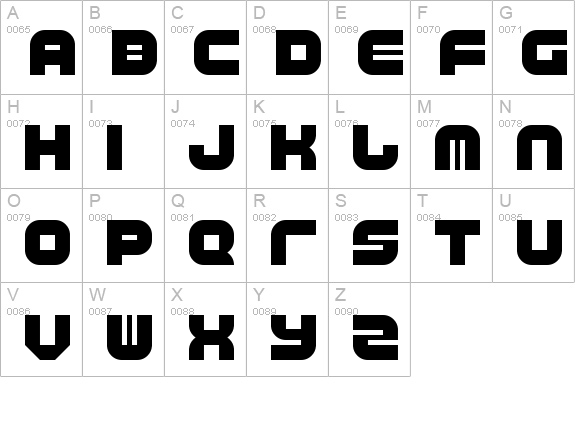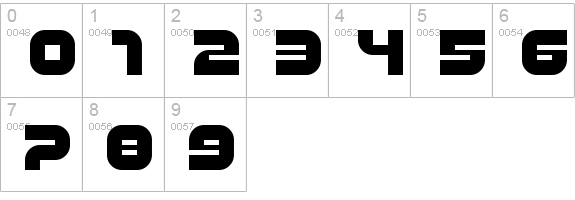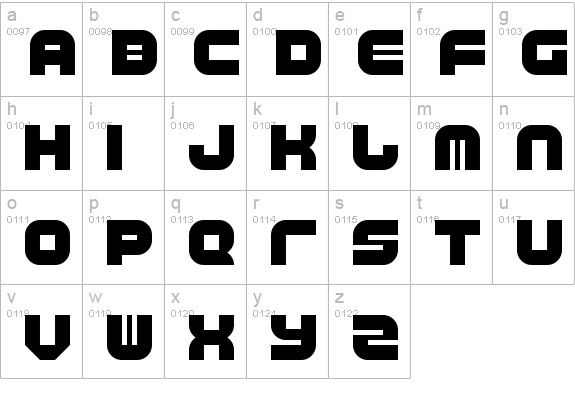
Trip Trap Regular Font Details
Trip Trap Regular is the standard, neutral variant in the Trip typeface family \xE2\x80\x94 well suited to general body text, paragraphs, and standard typographic work.
Trip Trap Regular font is a versatile and modern typeface that is perfect for a wide range of design projects. Its clean lines and balanced proportions make it easy to read while also adding a touch of sophistication to any layout. Whether you're designing a website, creating a logo, or working on a print project, Trip Trap Regular font will bring a professional and polished look to your work. The best part? Trip Trap Regular font is completely free to download at FontsMarket.com. This means you can start using this high-quality font in your projects right away, without having to worry about any additional costs. With its timeless design and free availability, Trip Trap Regular font is a must-have addition to any designer's toolkit.